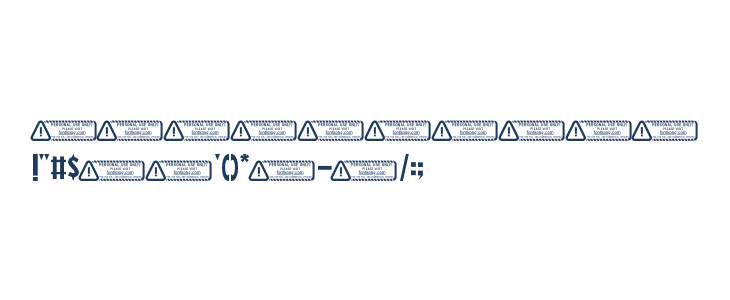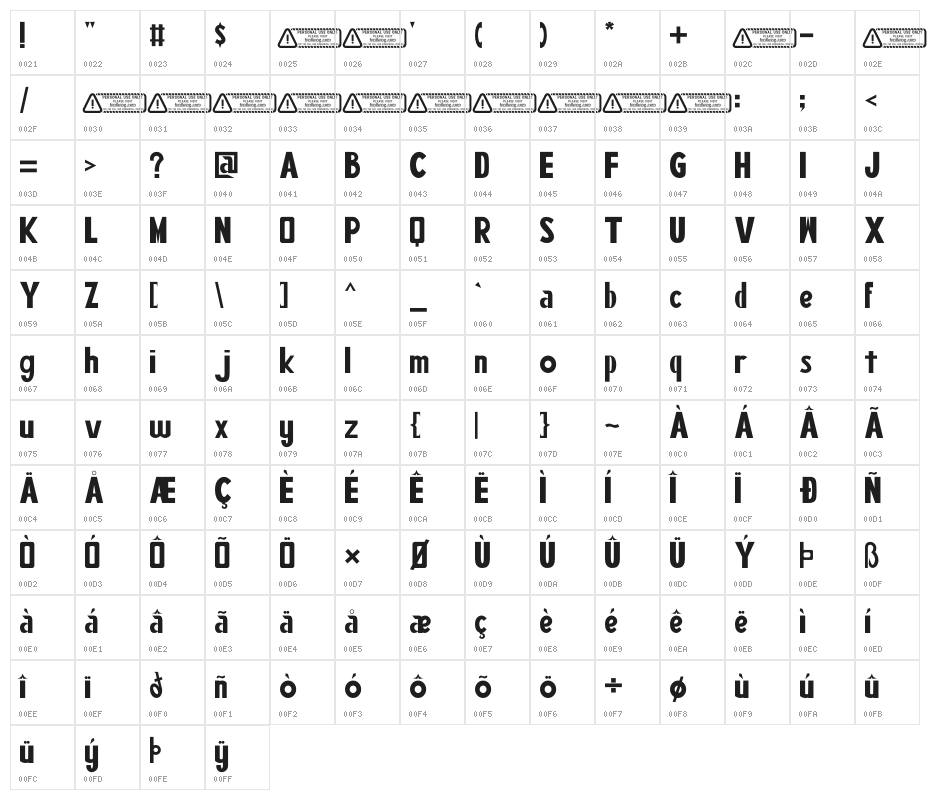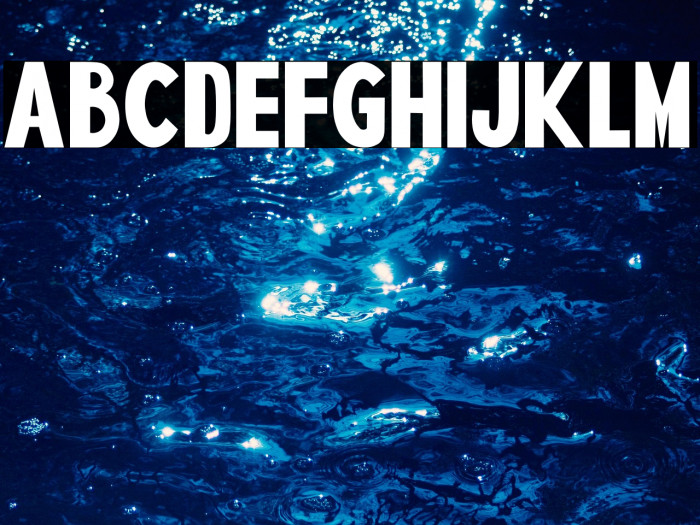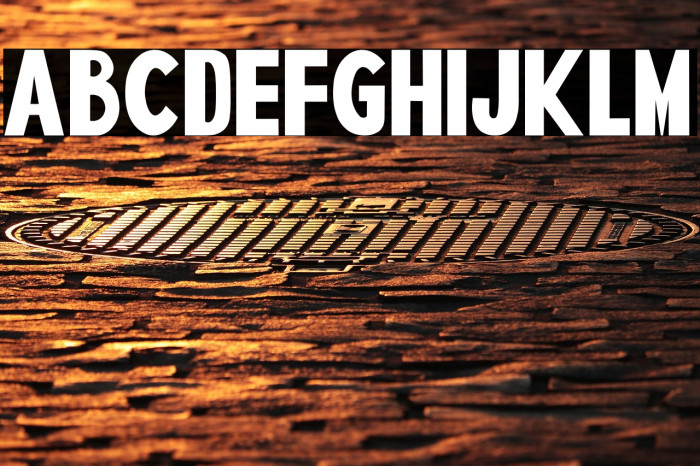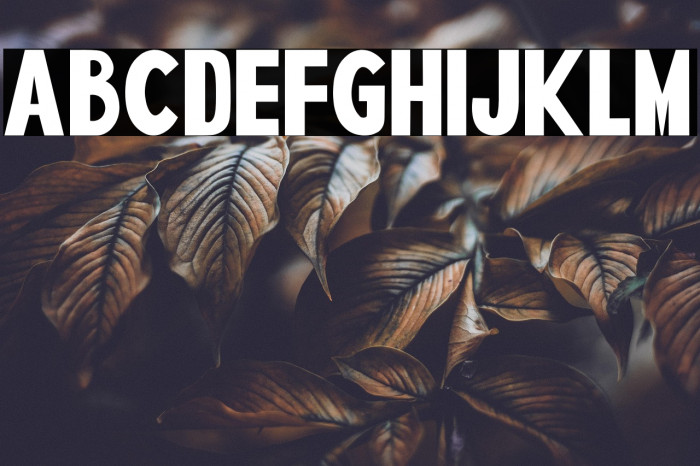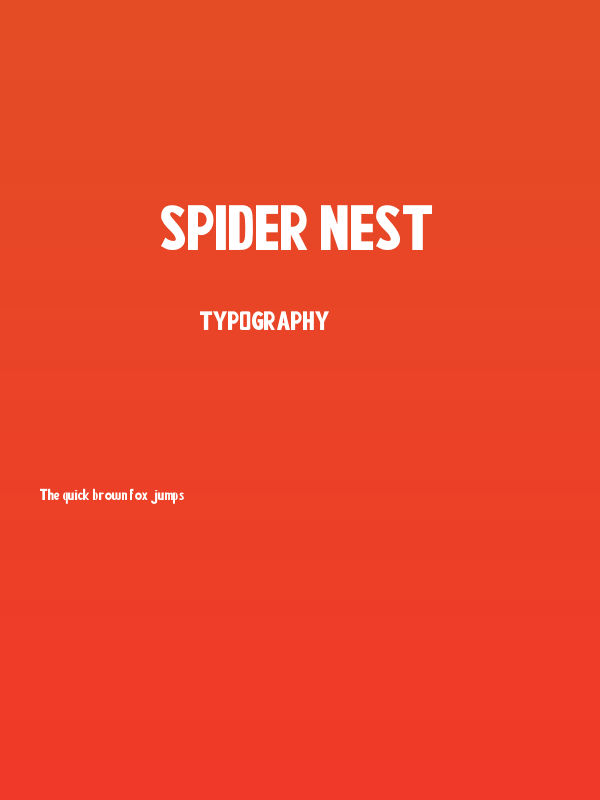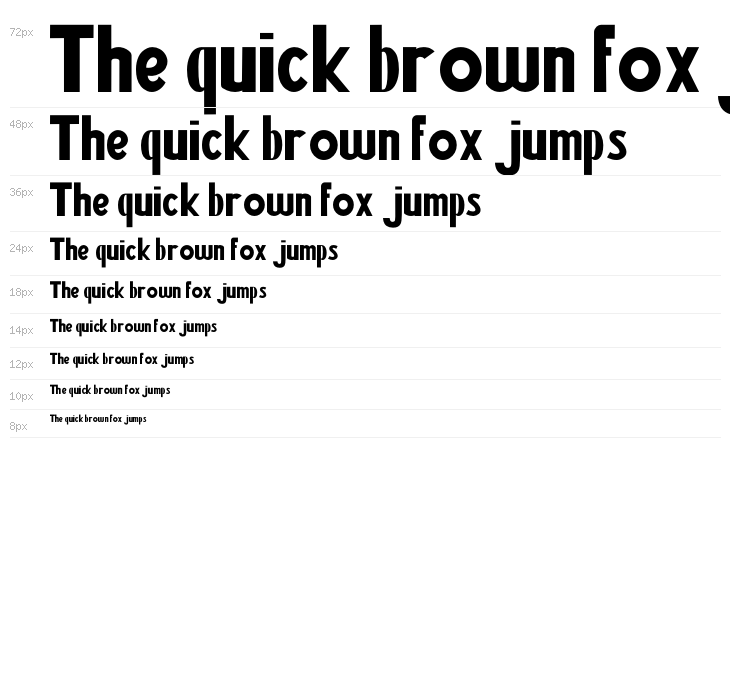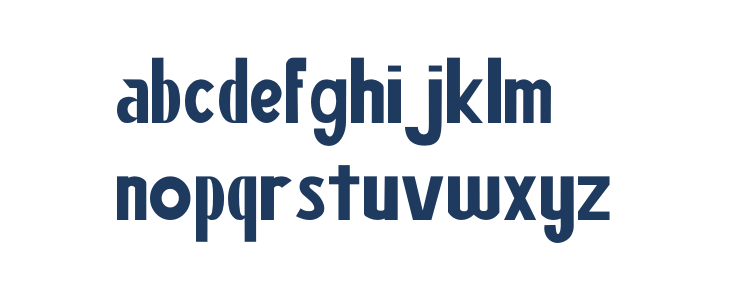
SPIDER NEST Font
This font features a bold and striking design with sharp, angular edges that create a sense of movement and energy. The uppercase letters are particularly prominent, with a strong presence that commands attention. The lowercase letters maintain the same boldness, ensuring consistency throughout the typeface. The numerals and special characters are designed to match the overall aesthetic, making them suitable for a variety of uses. The font's unique style is both modern and slightly aggressive, making it ideal for projects that require a strong visual impact.
| Proposed Projects | Ideal for posters, headlines, logos, and branding materials that require a bold statement. |